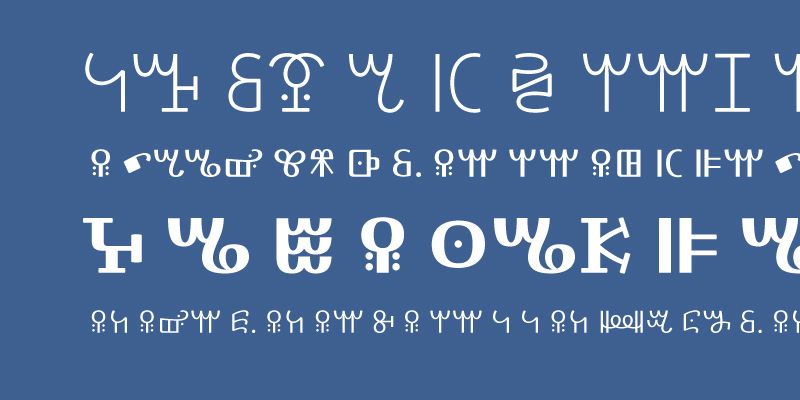
Kigelia Vai Font Free Download is a unique and contemporary typeface that brings together traditional elegance with modern design principles. Designed to support the Vai script, used primarily in Liberia and Sierra Leone, this font is perfect for multilingual projects, cultural publications, and global branding initiatives that require clear and stylish representation of the Vai script alongside other writing systems.
Kigelia Vai Font Free Download offers a well-balanced design that ensures readability while embracing the distinctive shapes and forms of the Vai characters. The font is ideal for projects aimed at African communities, as well as those looking to incorporate the Vai script into digital or print media.
It can also be paired with Latin-based typefaces, creating a harmonious multilingual design that bridges cultures effectively.